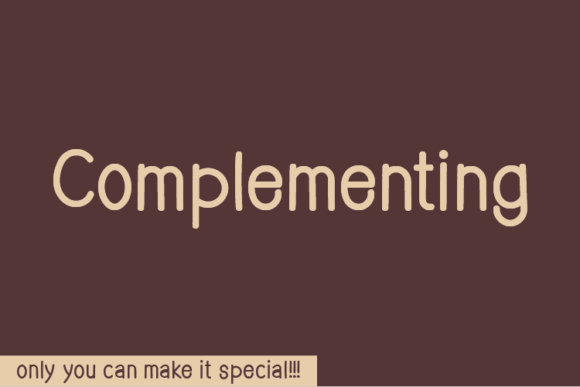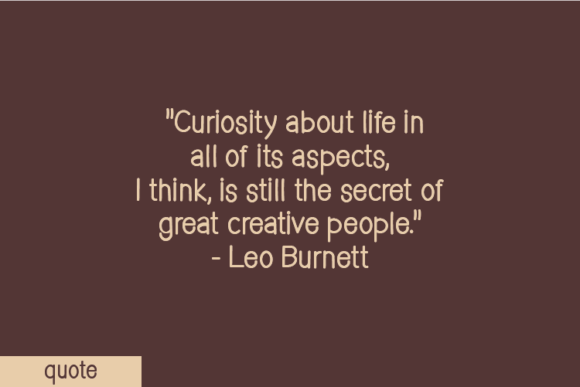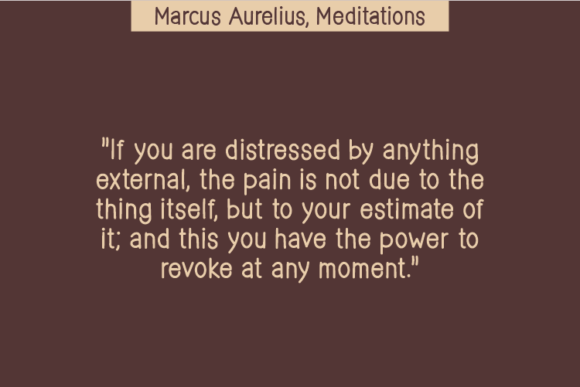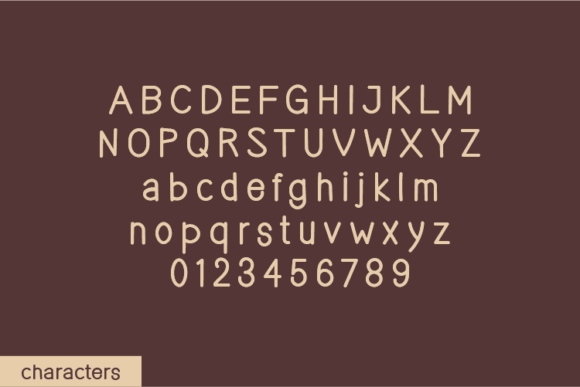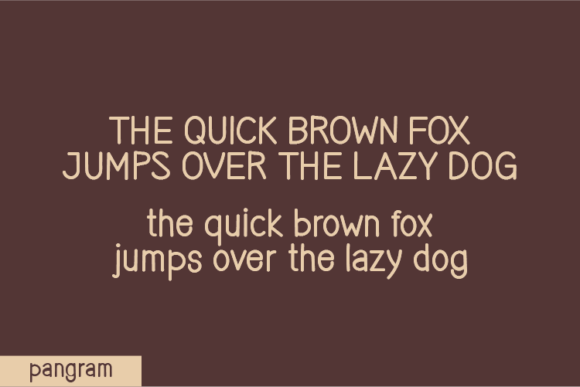
Complementing Font
About Complementing Font
The Complementing Font Download is a natural handwritten typeface that focuses on authenticity and originality. Unlike refined digital fonts that go through heavy modification, Complementing was created without changing a single node in each character’s indentation. This design method preserves the natural structure of handwriting, giving the font a raw and handcrafted appeal that feels both personal and unique.
Because of its organic strokes, Complementing brings warmth and creativity to any project. It strikes the right balance between casual charm and professional clarity, making it useful for a wide range of designs. You can apply it to quotes, notes, t-shirt graphics, posters, packaging, social media content, or stationery. Wherever you use it, Complementing adds an authentic handwritten touch that helps your work stand out.
Features of Complementing Font
• Authentic handwritten style with natural flow
• Unique creation process with no altered nodes
• Complete character set including uppercase, lowercase, numbers, and punctuation
• Readable strokes that balance creativity with clarity
• Versatility for use in both print and digital projects
Best Uses for Complementing Font
The Complementing Font Download adapts beautifully to a wide range of design applications. For example, it looks great in inspirational quotes designed for social media, helping messages feel personal and engaging. It also adds character to t-shirts, tote bags, or hoodies, making merchandise stand out.
In addition, Complementing is an excellent choice for journals, planners, greeting cards, and invitations, where a handwritten style adds warmth. It also enhances product packaging and labels, especially for handmade or artisanal goods. Furthermore, it supports logos and branding projects, giving businesses a unique visual identity. Finally, it works perfectly in posters, flyers, and event promotions, where its handcrafted feel captures attention.
Why Choose Complementing Font
Designers choose the Complementing Font Download because it values authenticity over polish. By leaving every indentation intact, it highlights the raw beauty of handwriting. As a result, it builds a stronger emotional connection with viewers than many generic fonts.
Unlike over-polished typefaces, Complementing provides the right mix of originality, readability, and style. It adapts well to both casual and professional projects, which makes it a reliable tool for designers who want their work to appear approachable and distinctive.
The Complementing Font Download is a natural handwritten typeface that blends handcrafted charm with creative versatility. With its raw strokes and authentic rhythm, it is perfect for quotes, apparel, packaging, stationery, posters, and much more.